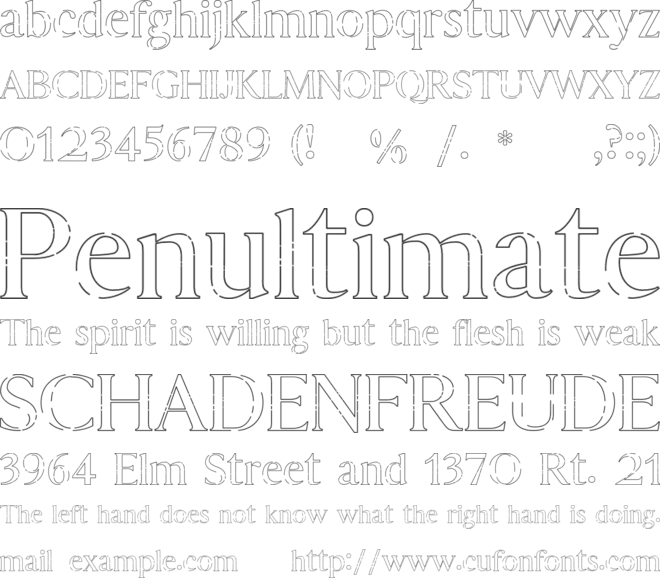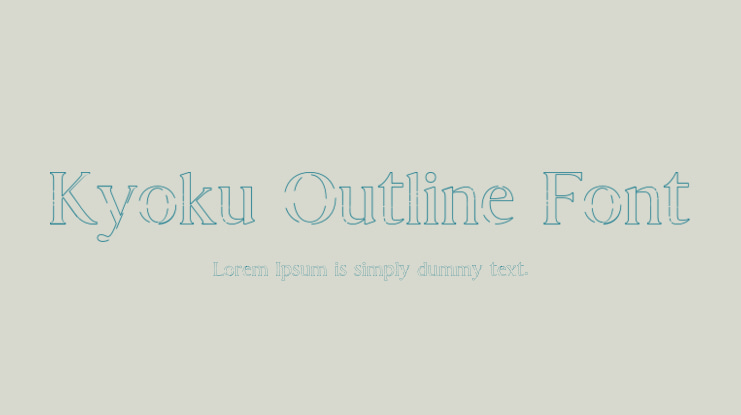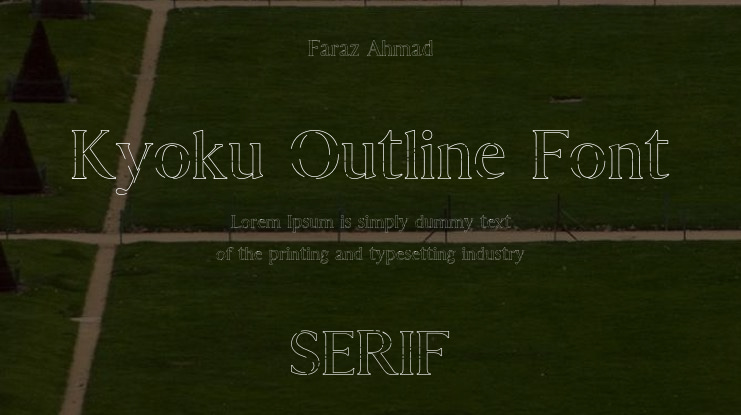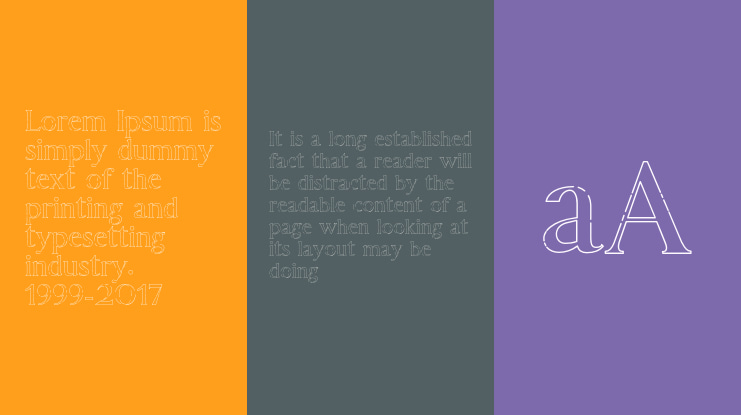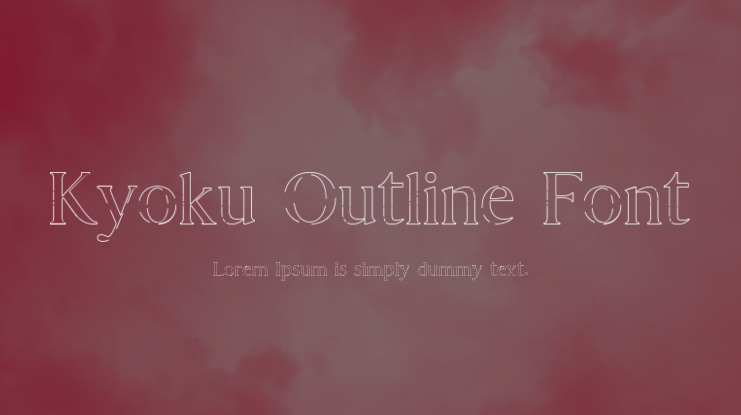
Kyoku Outline Font
This versatile font is perfect for a variety of uses, from branding to social media content, making it easy to express your creativity. It is crafted to enhance readability while providing a stylish visual experience. The outline design ensures that the font can blend seamlessly into different themes, giving you the freedom to experiment with layering, colors, and backgrounds.